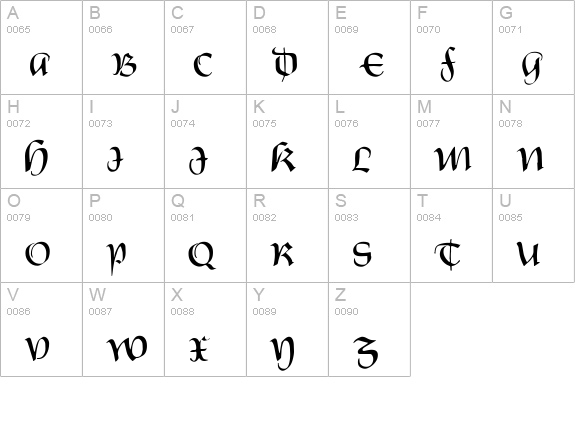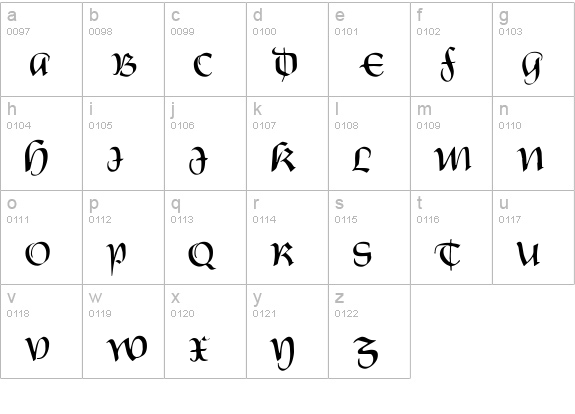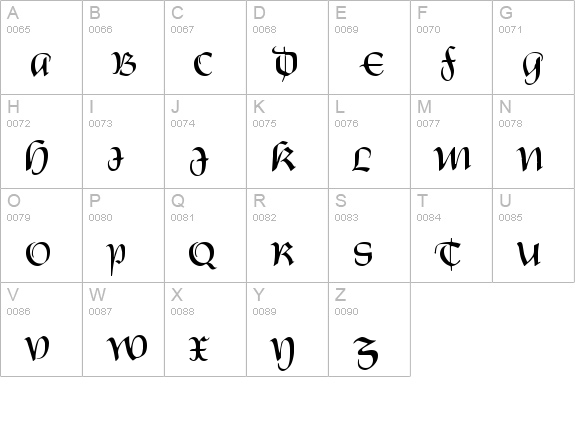
Castiglione Regular is the standard, neutral variant in the Castiglione typeface family \xE2\x80\x94 well suited to general body text, paragraphs, and standard typographic work.
Castiglione Regular is a versatile and elegant font that exudes sophistication and style. With its clean lines and classic appeal, this typeface is perfect for a wide range of design projects, from branding to editorial layouts. The smooth curves and balanced proportions of Castiglione Regular make it a timeless choice for any designer looking to add a touch of refinement to their work. And the best part? Castiglione Regular is available for free download at FontsMarket.com. That's right, you can elevate your designs with this beautiful font without having to spend a dime. So why wait? Download Castiglione Regular today and see how it can enhance your next project!